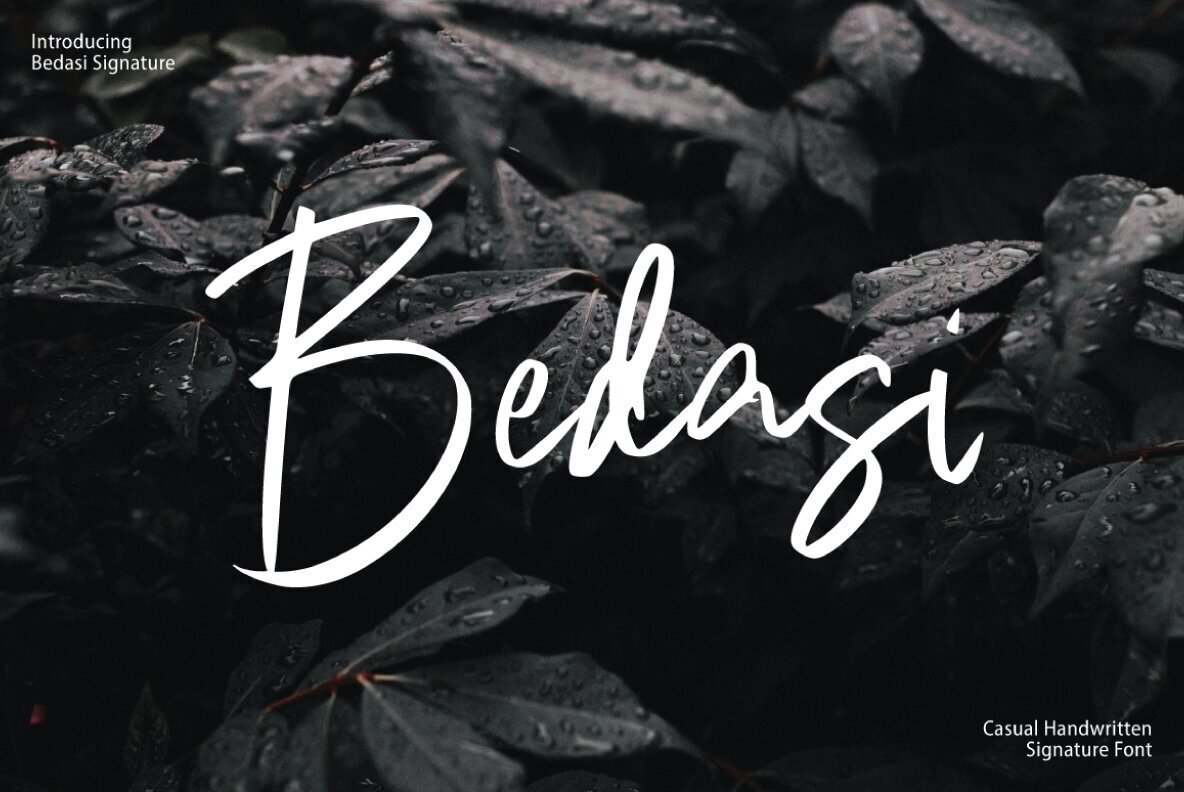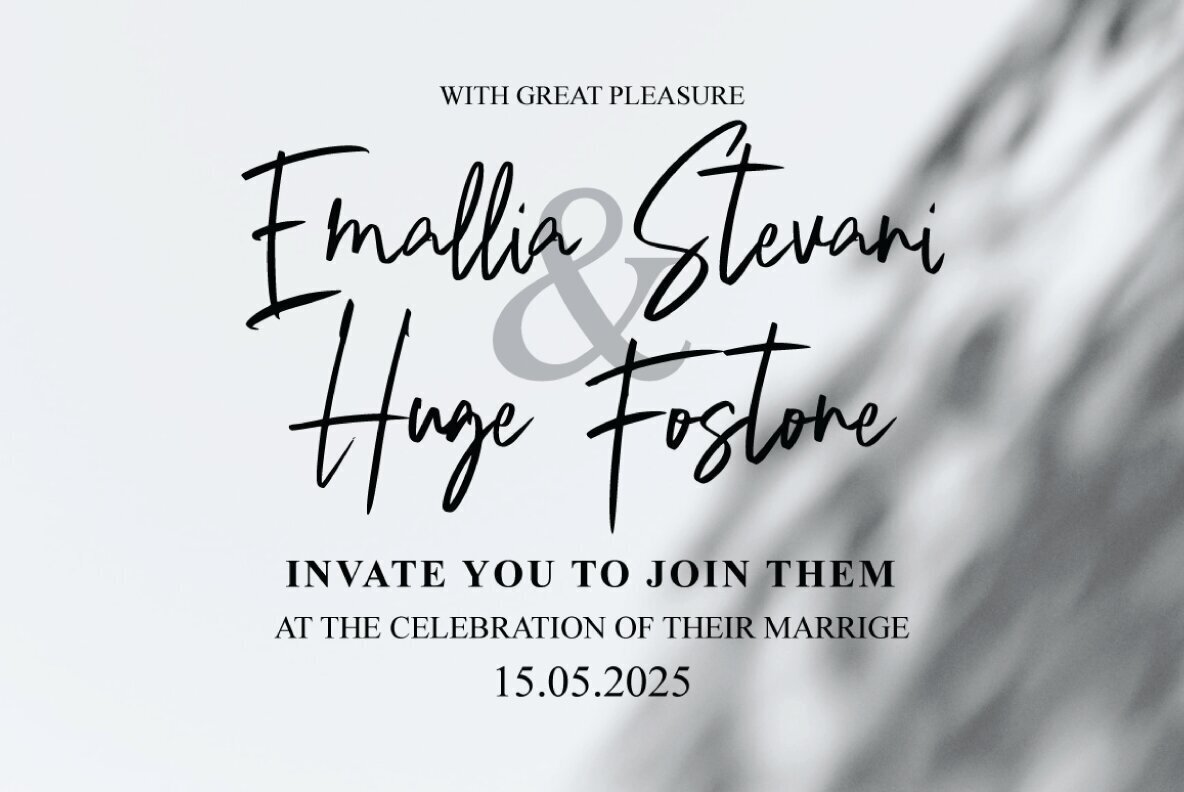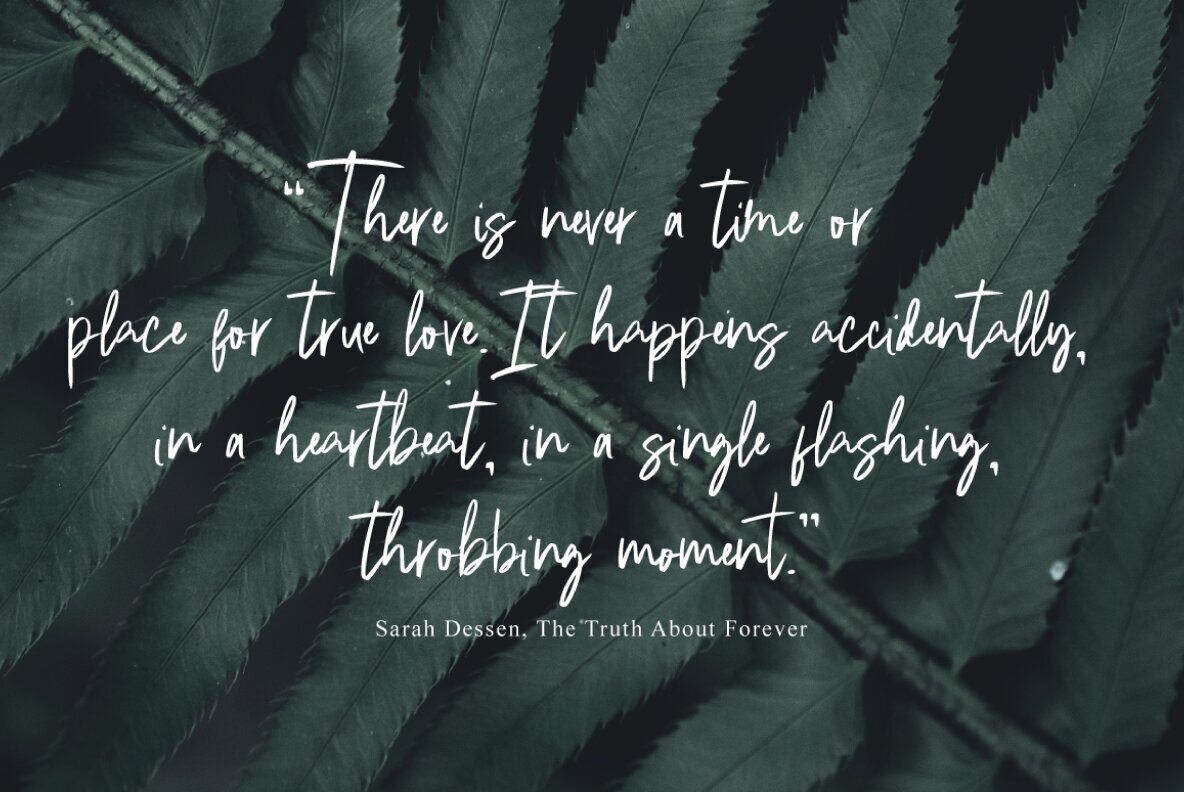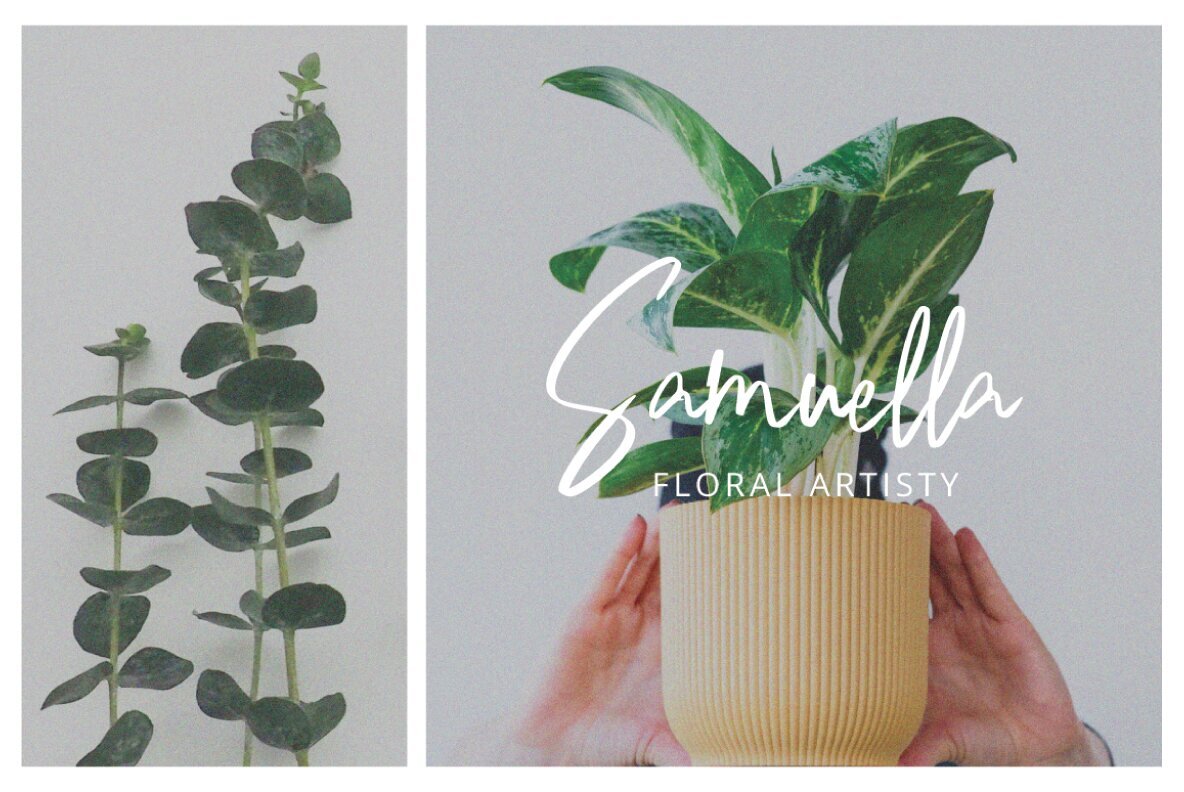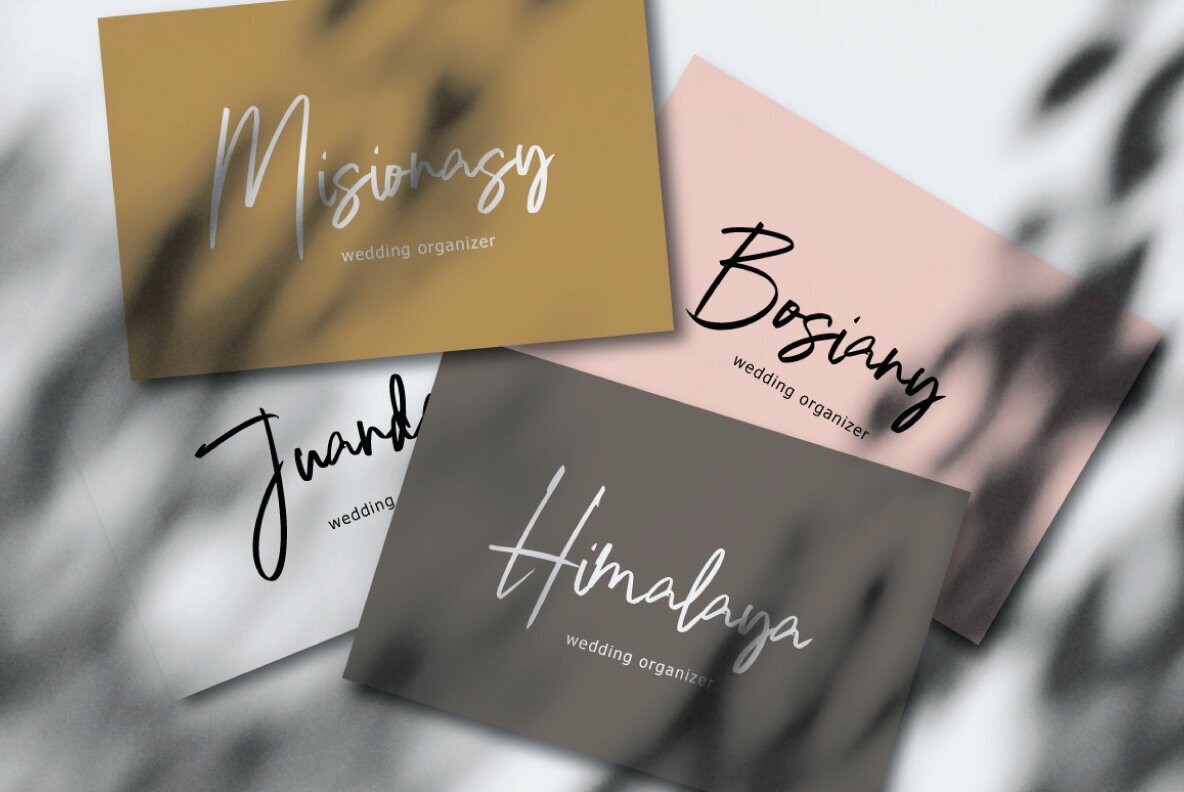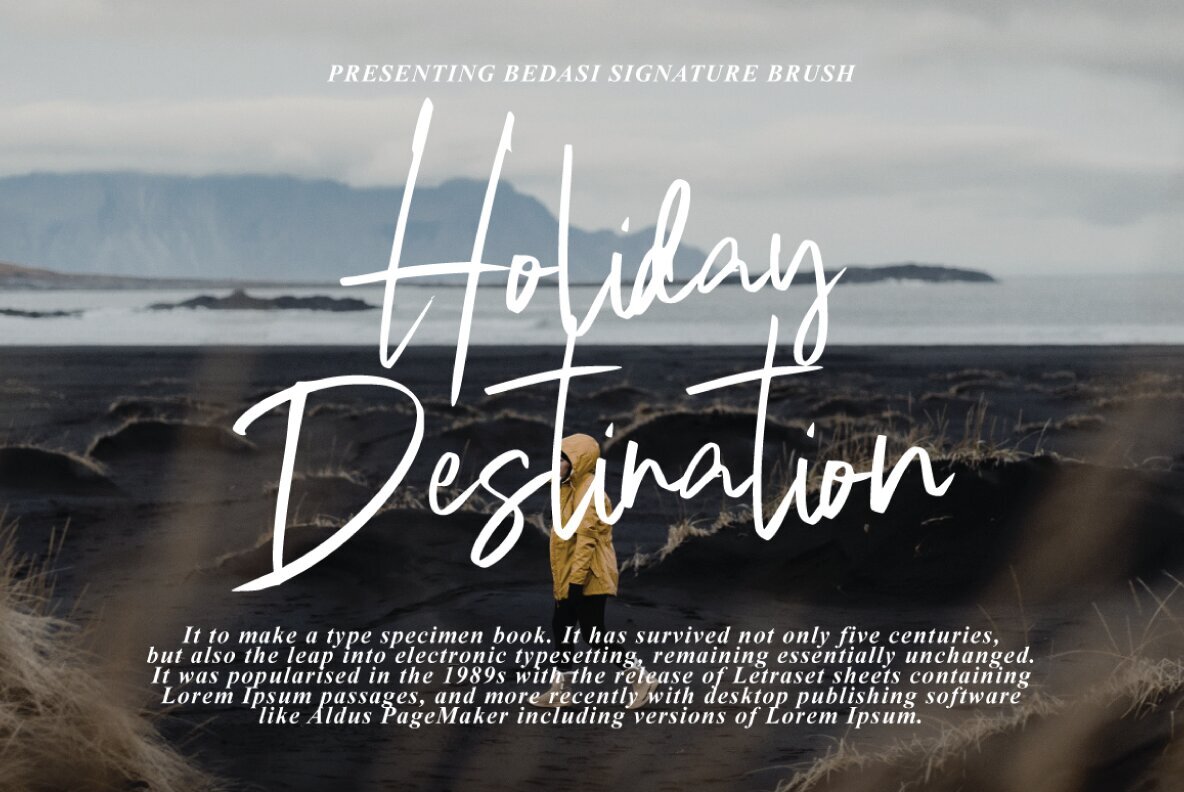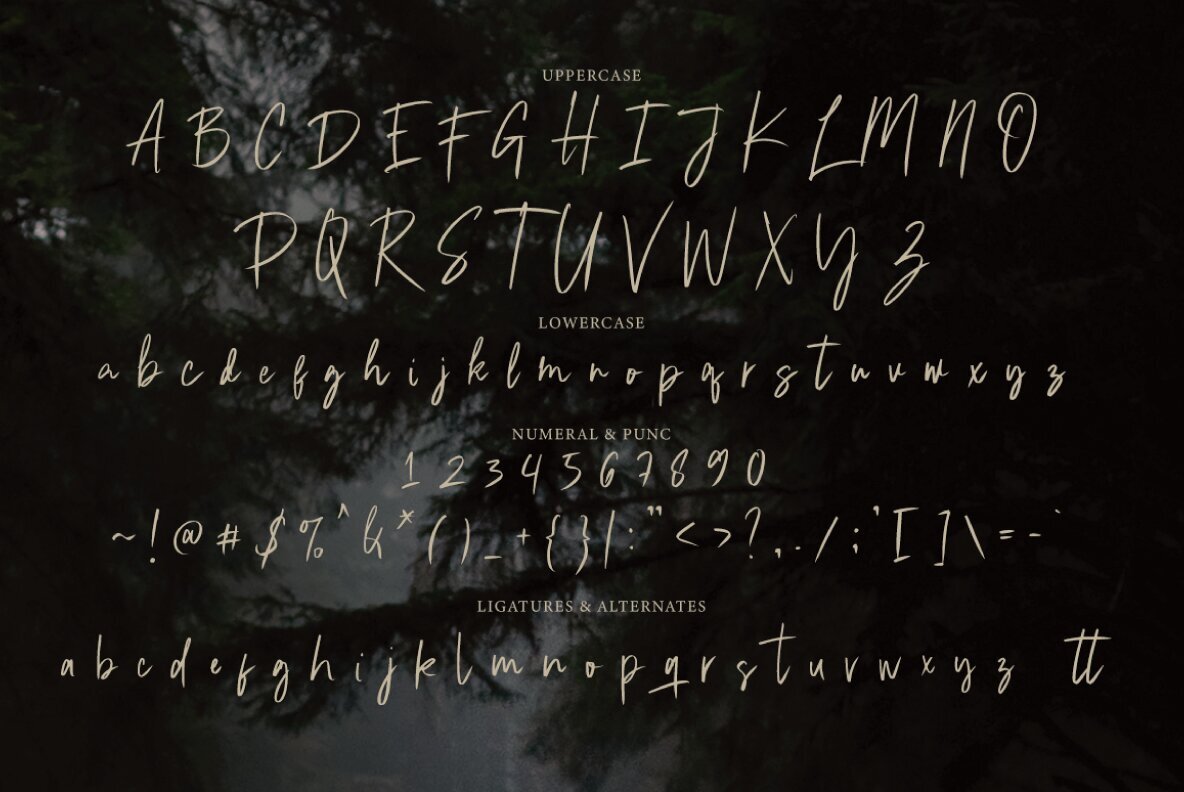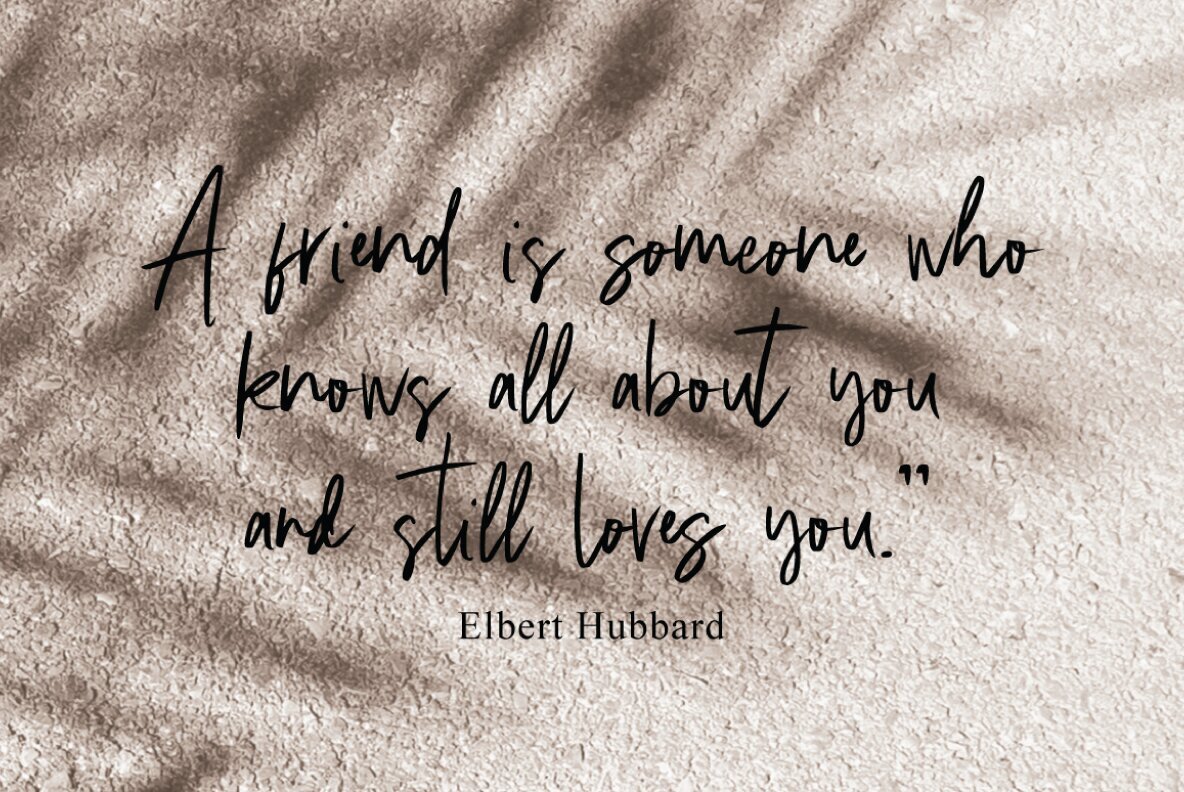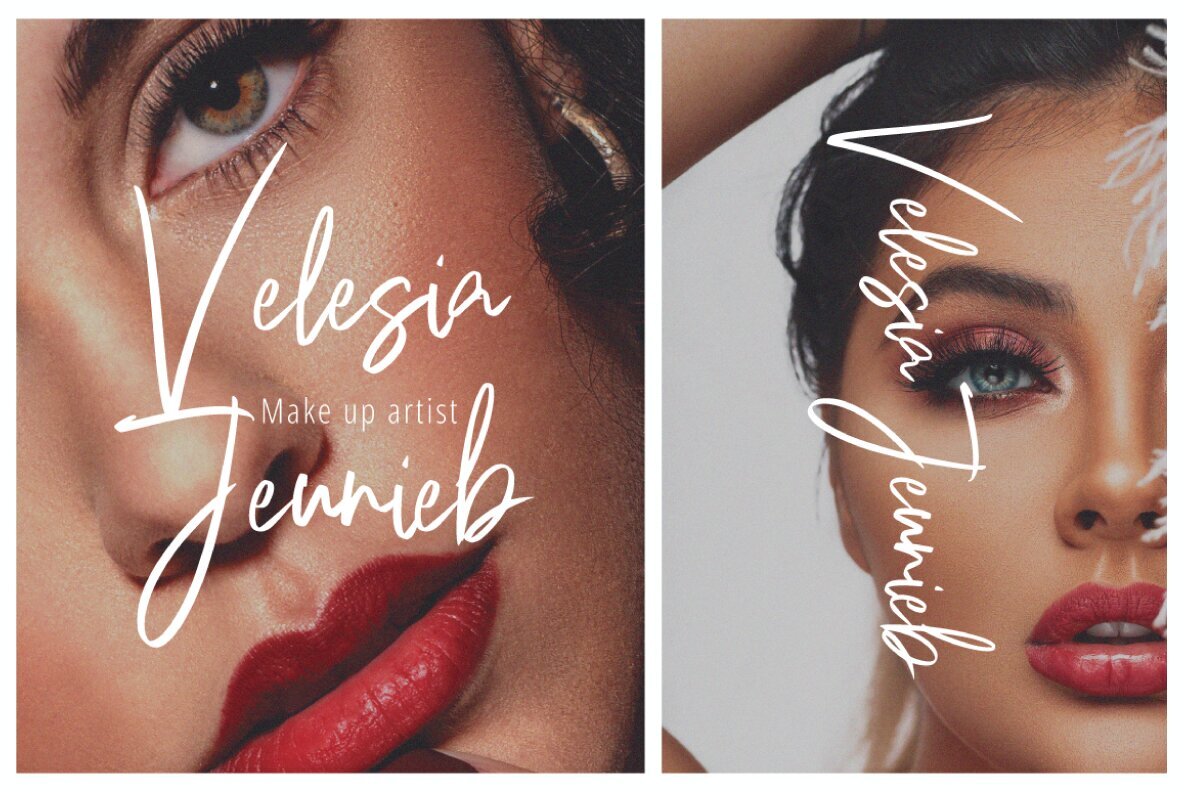
Bedasi Font
Bedasi Signature Regular
Embrace elegance with the Bedasi Signature typeface, perfect for adding a touch of sophistication to your creative projects. This handmade signature style font features decorative characters and a charming dancing baseline. Ideal for greeting cards, branding materials, business cards, quotes, and posters, Bedasi Signature will bring your designs to life. The Bedasi set includes Basic Latin A-Z and a-z, numbers, symbols, stylistic sets, ligatures, and robust multilingual support. Even without advanced design software, you can explore all alternate glyphs using Font Book on Mac or Character Map on Windows.Bedasi Signature Typeface